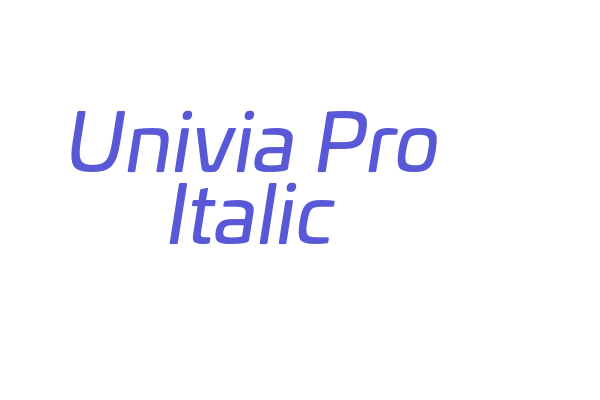
Univia Pro Italic is a sleek and modern sans serif font designed by Olivier Gourvat. Part of the Univia Pro font family, this italic style adds a touch of elegance and sophistication to any design. Ideal for headings, logos, and branding projects, this font is perfect for creating a polished and contemporary look.
Font Name: Univia Pro Italic
Designer: Olivier Gourvat
Font Family: Univia Pro